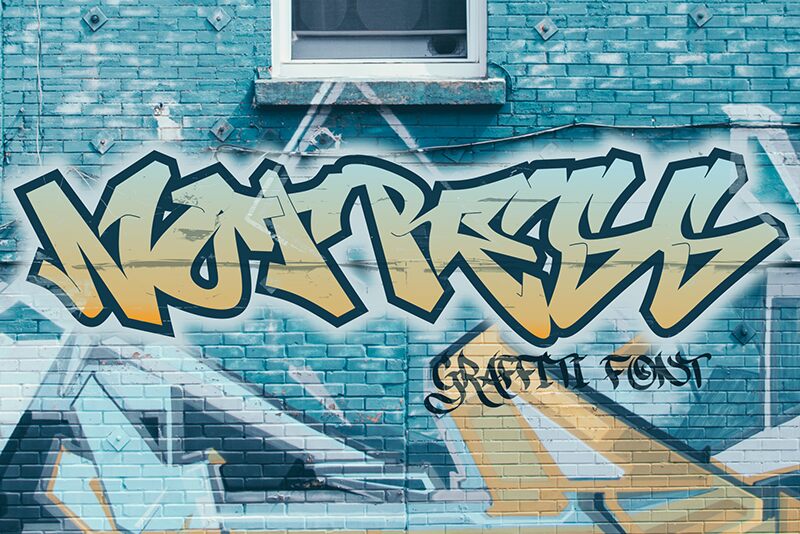
Unleash your inner rebel with Notress Graffiti, the bold and daring typeface by Si Panji. With its semi-expanded width and graffiti-inspired style, this font is perfect for adding a rebellious edge to any project. Use it to create eye-catching logos, posters, or album covers that demand attention and make a statement. Whether you're designing for a streetwear brand or an underground music festival, Notress Graffiti is the ultimate choice for any project that needs an edgy touch. So let your creativity run wild and start unleashing the power of this bold font today!